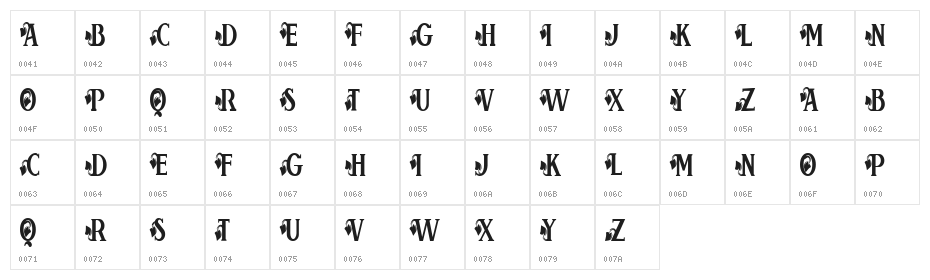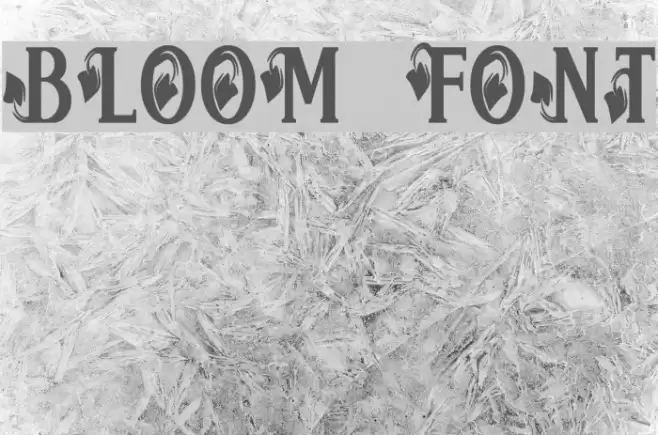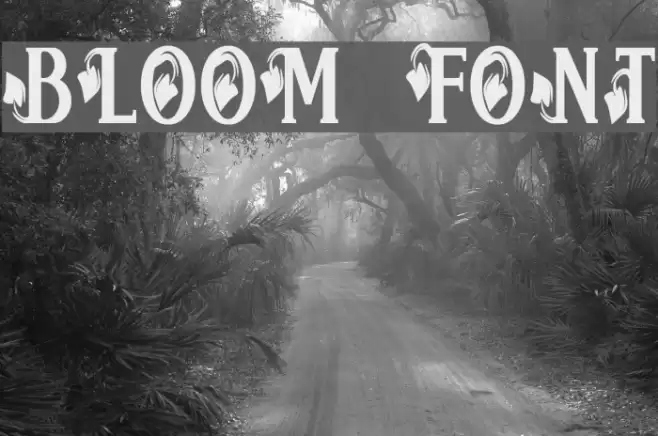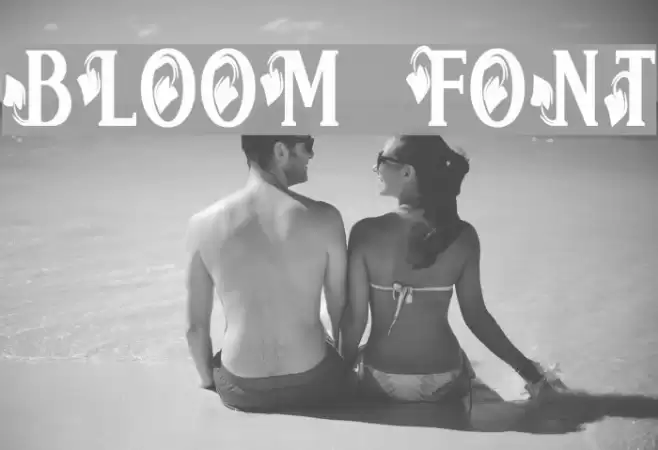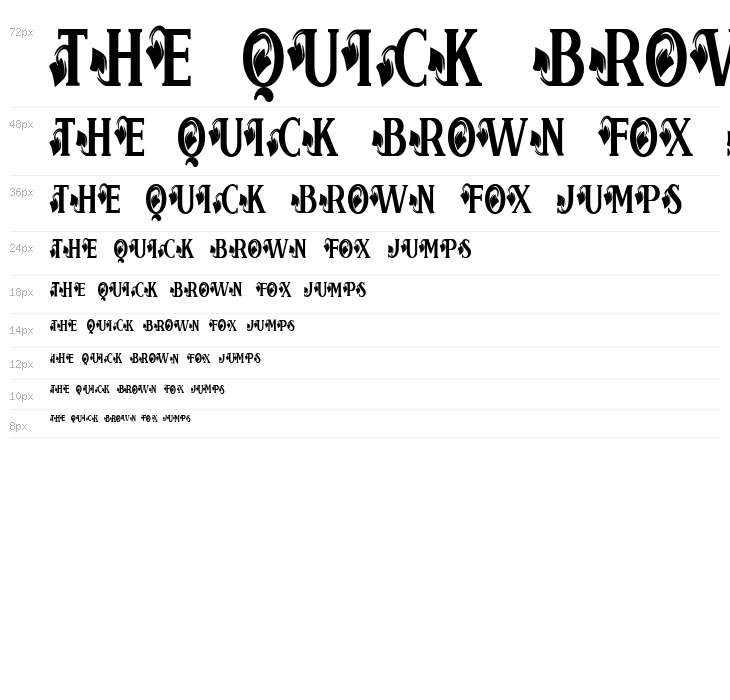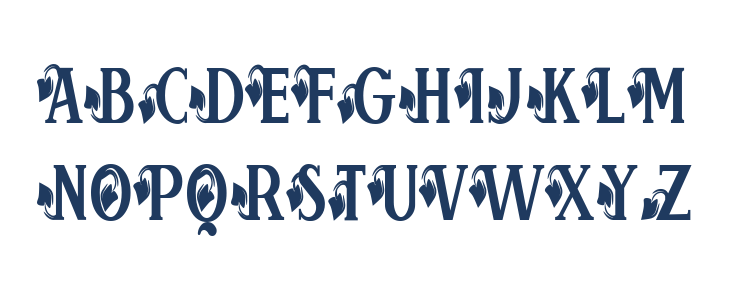
Bloom Font
Bloom Description
This font features an ornate and decorative style, characterized by intricate floral and leaf-like embellishments integrated into each letter. The uppercase letters are bold and commanding, with each character adorned with elegant, swirling motifs that give a sense of movement and sophistication. The design is highly stylized, making it ideal for projects that require a touch of elegance and artistic flair. The absence of lowercase letters and numbers suggests a focus on decorative applications rather than practical text usage.
| Proposed Projects | Ideal for wedding invitations, luxury branding, artistic posters, and decorative headlines. |